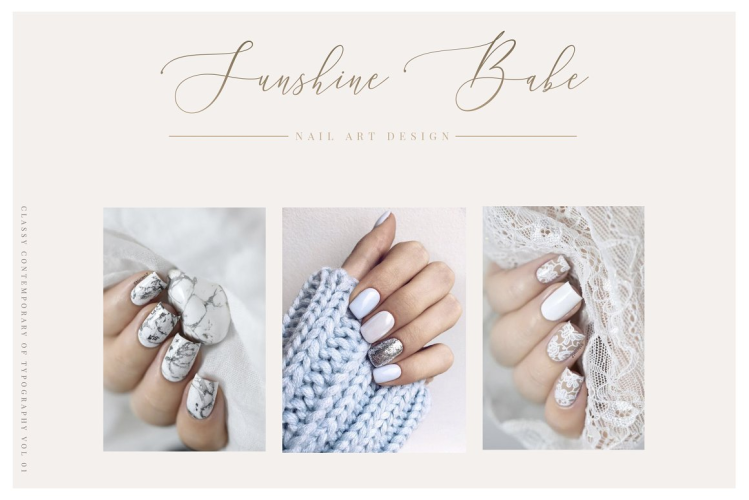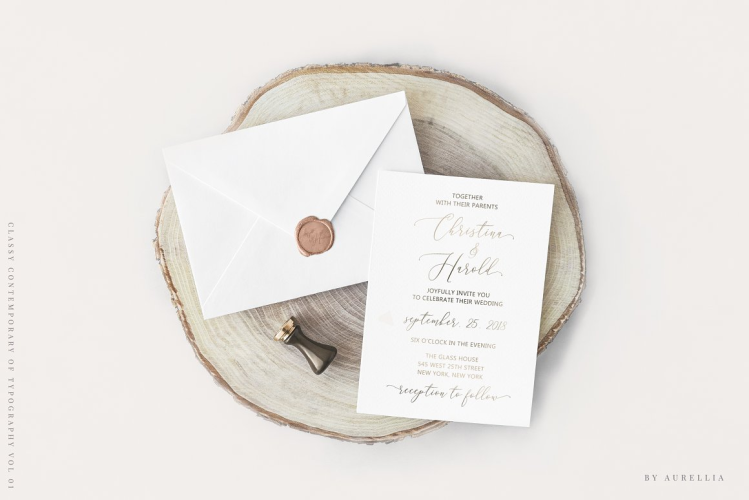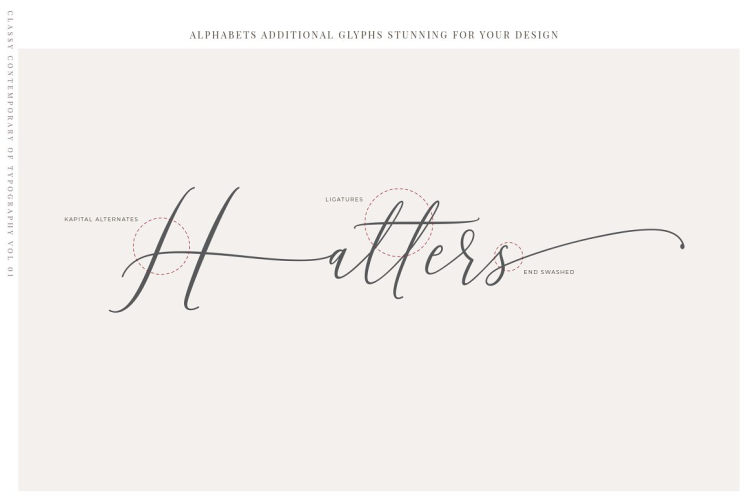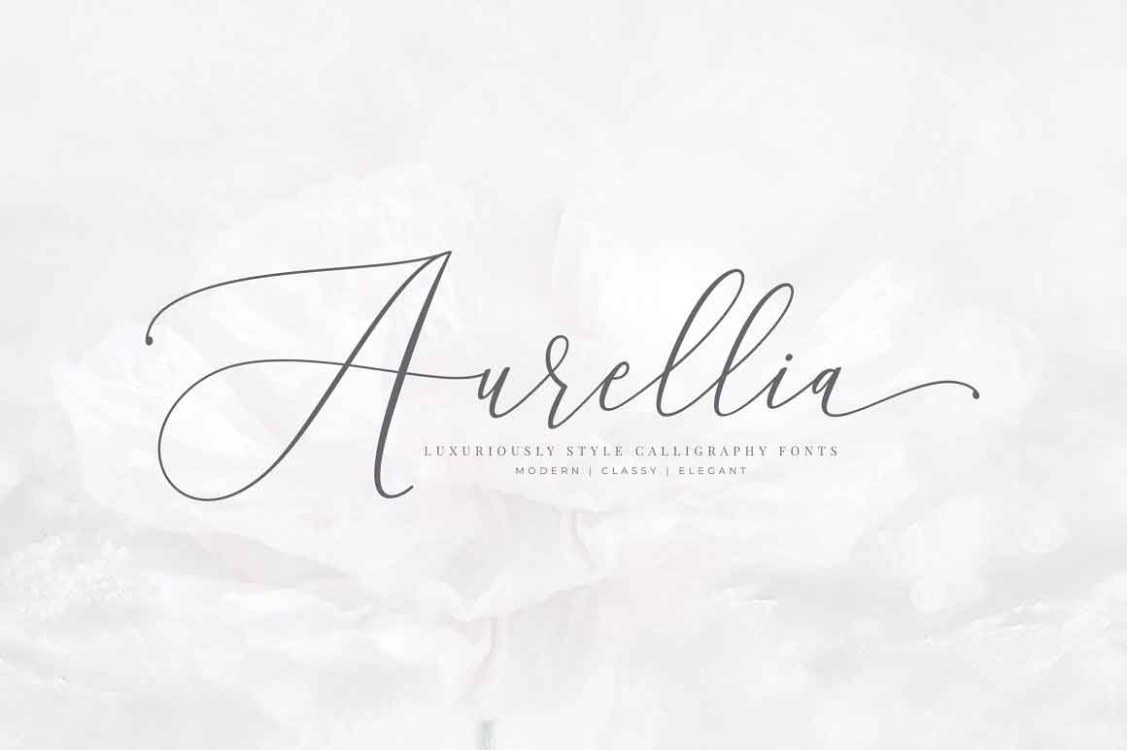
Aurellia Font
Aurellia is a classy handwriting font with a distinctive curve, inside with some interesting features that are perfect for a feminine-style project.
Aurellia have a features start and end swashed on uppercase and lowercase letters, very beautiful ligature and this font is very qualified when you use for wedding design projects, fashion, greeting, invitation, social media and much more.
Where Aurellia Font works best
Aurellia Font brings a personal, handwritten warmth to invitations, menus and place cards.
Craft brands — coffee, cosmetics, bakery — use scripts like Aurellia Font for signature-style logos and labels.
Pair Aurellia Font with a plain sans for quotes, stories and Pinterest pins that feel handmade.
What is Aurellia Font good for?